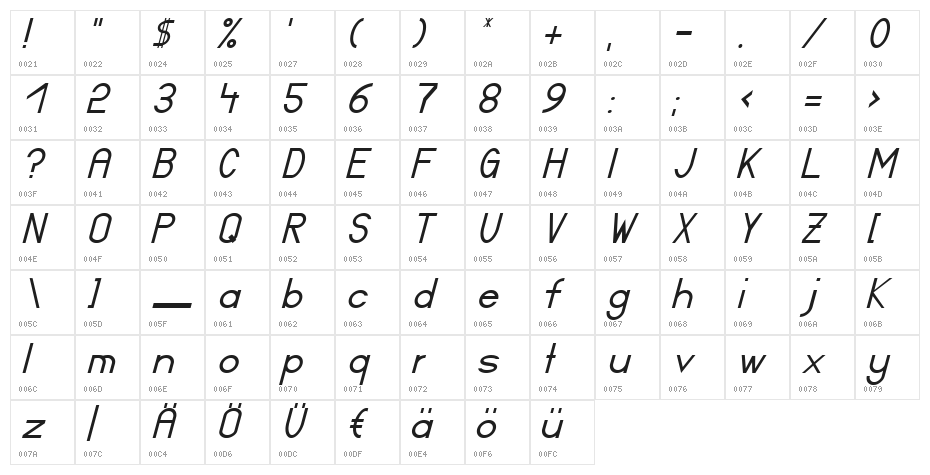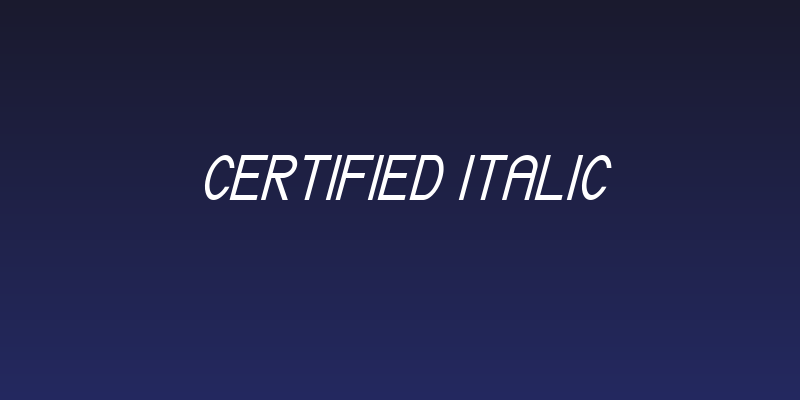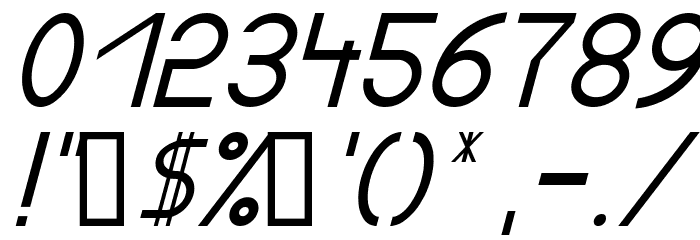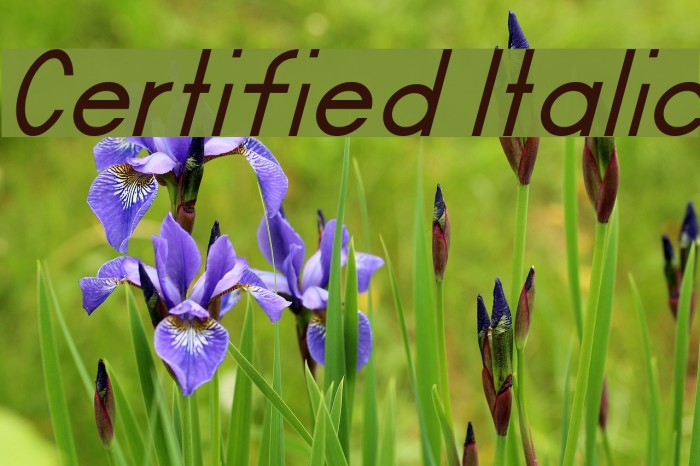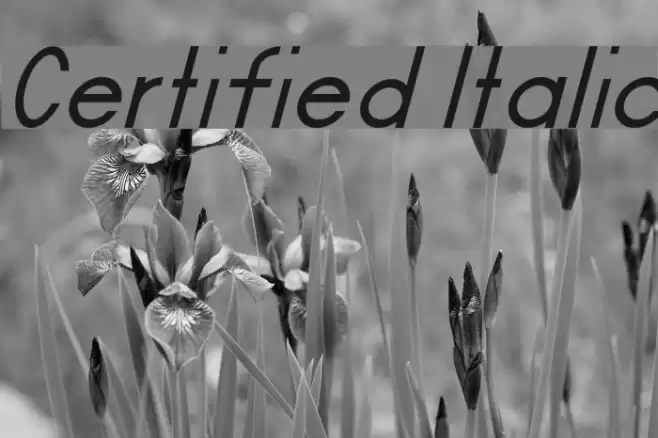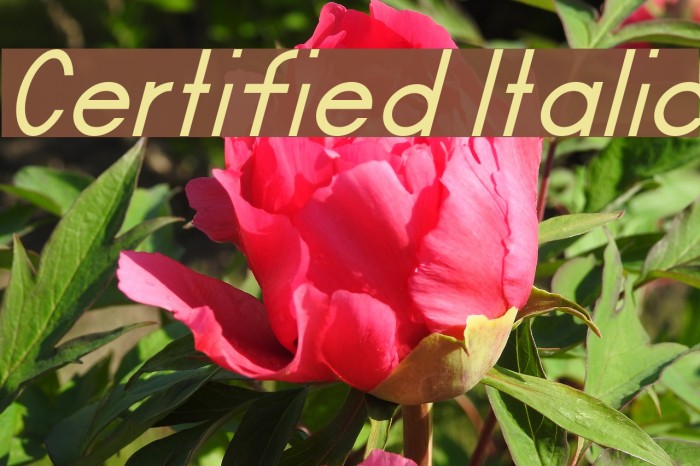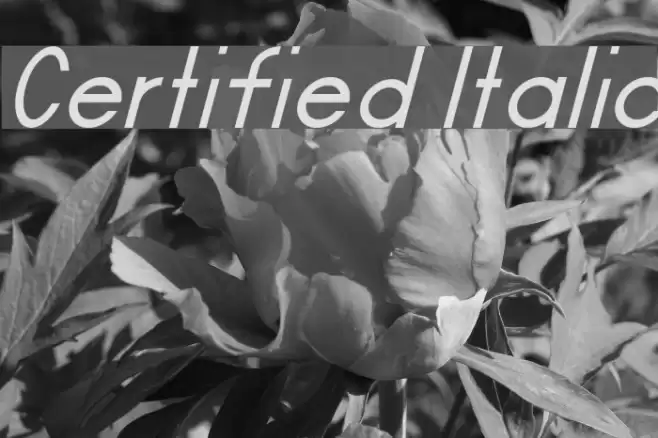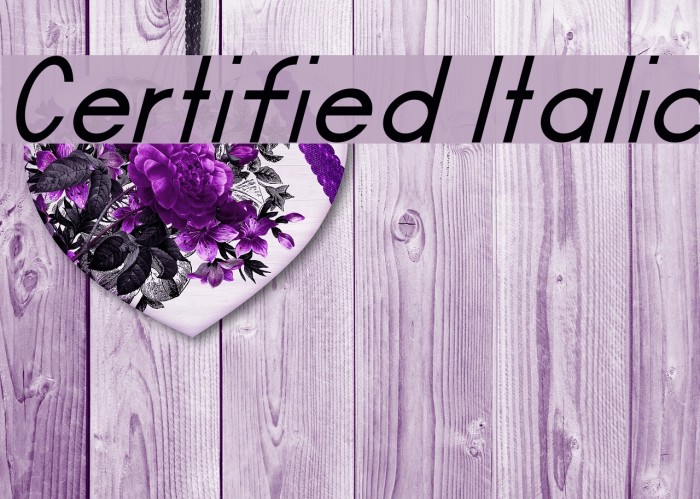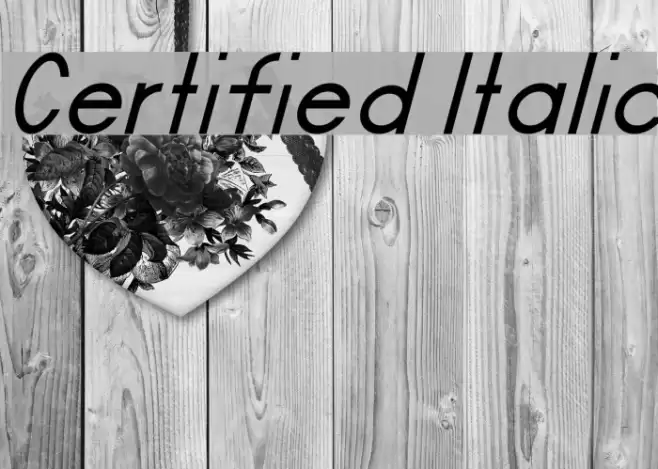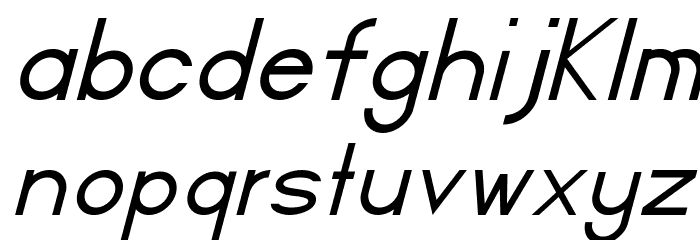
Certified Italic Font
Certified Italic Description
This font features a sleek, italicized design with a modern and dynamic appearance. The characters are slightly slanted, giving a sense of motion and elegance. The strokes are consistent in width, providing a uniform look across all letters and numbers. The uppercase and lowercase letters maintain a harmonious balance, while the numerals are clear and easy to read. Special characters are well-integrated, maintaining the overall style of the font. The design is versatile, suitable for various applications where a contemporary and stylish look is desired.
| Use Case | Headlines, Body text, Logos |
| Proposed Projects | Ideal for branding, advertising, digital media, and editorial design projects. |